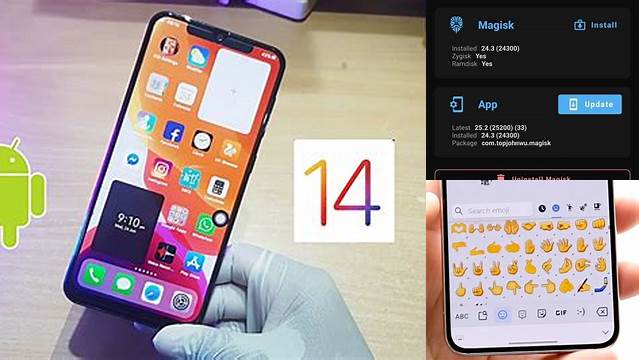
Get IOS 14 Fonts On Your Android Device
Hey everyone! Ever looked at an iPhone and thought, "Wow, those fonts are sleek?" Well, you're in luck, because in this guide, we're diving deep into how you can get those gorgeous iOS 14 fonts for Android! Forget feeling left out; we're bringing that Apple aesthetic right to your Android phone. We'll cover everything from the basics to the more advanced methods, ensuring you have the perfect font experience. Let's get started, shall we?
1. Understanding iOS 14 Fonts and Android Compatibility
So, what's the deal with iOS 14 fonts for Android? The primary fonts in iOS 14, like San Francisco (SF Pro), give Apple devices their distinctive look. These fonts are optimized for readability and a clean, modern feel. Now, Android, being the open-source operating system that it is, lets you customize a lot. Unlike iOS, which is more locked down, Android gives you the freedom to change fonts. However, simply copying an iOS font file (like .ttf or .otf) and pasting it into your Android device isn't always enough. You have to consider things like font compatibility, the Android version you're running, and how your specific device handles custom fonts. Some apps may also override your system-wide font choices, so we'll cover how to deal with those scenarios too. This section sets the stage for what's possible and what to expect when trying to get those beautiful iOS 14 fonts on your Android phone. It's not always a walk in the park, but the results are often worth the effort! And, yes, guys, we'll explore why it's cool and the challenges involved. We'll show you the steps to ensure the best font experience.
7. Troubleshooting Common Font Installation Issues
Getting iOS 14 fonts on Android isn't always smooth sailing, so let's talk about common problems and how to fix them. If the font doesn't change after installation, make sure you've followed the instructions correctly. Double-check that the font files are in the correct folder. And ensure the app or launcher you're using supports custom fonts. If the font looks distorted or doesn't render correctly, it's often because of compatibility issues. You might need to try a different version of the font file or a different installation method. Sometimes, an app may override your chosen font. This means that even if you change your system font, the app will use its own default font settings. There's not always a fix for this. If you're seeing the wrong font in the app, try to look for font settings within the app itself. If you have trouble with a root app, try clearing the app's cache and data. And then, restart your device. We will give you the best tips to make your iOS 14 font experience smooth.
8. Android Version Compatibility with iOS 14 Fonts
Android versions play a big role in how easily you can install iOS 14 fonts. Newer Android versions generally offer better support for custom fonts. Google has made it easier to change fonts, especially with Android 8.0 Oreo and later. If you're running an older version of Android, you might face more limitations. You might need to rely on custom launchers or font apps for installation. Keep in mind that your device manufacturer can also affect font compatibility. Some manufacturers add their own custom UI layers on top of Android. This can sometimes complicate font installation. Before attempting to change fonts, check your device's specifications. Look for information on font customization options. Knowing your Android version and device specifics can help you choose the most compatible installation method. You may be limited by the fonts that can be used. Also, you can always update your device if possible. This often includes updated support for fonts to install iOS 14 fonts.
9. The Differences Between SF Pro and Other iOS Fonts
The primary font used in iOS 14 is San Francisco (SF Pro). Understanding its unique characteristics is key. SF Pro is designed to be highly legible at all sizes. This is a key feature. It has a clean, modern, and slightly rounded design, which gives it a friendly appearance. Unlike other fonts like Helvetica, SF Pro is optimized for the Retina display. It provides a crisp and clear visual experience on high-resolution screens. When installing SF Pro on Android, it's important to remember the specific characteristics. So you can get the best aesthetic experience. The typeface family has a variety of weights, from ultra-light to heavy. This allows you to customize the appearance of your text to suit your preferences. When you are trying to download iOS 14 fonts, be sure to download SF Pro.
10. Best Practices for Font Management on Android
Managing fonts on your Android device effectively is essential for a smooth user experience. Before installing new fonts, it's always a great idea to back up your system fonts. This way, you can easily revert back to your original settings if needed. Make sure you have enough storage space on your device before downloading and installing font files. This can prevent unexpected issues during the installation process. Regularly check and update your font apps or custom launchers to the latest versions. This will ensure you have the latest features, bug fixes, and compatibility. If you're using a custom launcher, experiment with different font sizes and styles to optimize readability. And, personalize your viewing experience. In general, be mindful of the fonts you install and their potential impact on your device's performance. Following these best practices will help you get the most out of iOS 14 fonts.
11. Comparing Font Apps: Which One Is Right for You?
When it comes to font apps for getting iOS 14 fonts on your Android device, the options are numerous, and choosing the right one can be tricky. Some font apps stand out for their ease of use. They have simple interfaces and offer straightforward installation processes. Other apps may provide a broader selection of fonts. That can include more customization options, and even support for specific device models. The best app for you depends on your personal preferences. Consider the features that are most important to you. Do you prioritize ease of use? Or do you value a vast font library? Read reviews from other users to get insights into the app's performance. This can include how the app handles system-wide font changes and how it impacts battery life. Always check the app's permissions to ensure you're comfortable with the level of access it requires. Some apps will ask to change the fonts. Some will use all of your data. Consider your device and how the app will affect it. When choosing a font app to download iOS 14 fonts, make the choice that works best for you.
12. Finding the Perfect iOS 14 Font Size and Style
Once you have your iOS 14 fonts installed on your Android device, the next step is to find the perfect size and style. Most font apps and launchers allow you to adjust the font size to your liking. Experiment with different sizes until you find one that's easy to read and comfortable for your eyes. Some apps also provide options to change the font weight. You can choose between bold, italic, or regular styles. This can further customize the look of your text. Consider the overall aesthetic of your device. A font size that's too small may be difficult to read. One that is too large might appear cluttered. Play around with different combinations of sizes and styles to find what works best for you. Don't be afraid to tweak the settings until you achieve your desired result! Finding the perfect font size and style adds a unique, personalized touch. This also ensures that the iOS 14 fonts are easily readable.
13. The Impact of Font Choice on Your Device's Interface
The font you choose can significantly influence the appearance of your Android device's interface. An iOS 14 font like San Francisco can give your device a clean, modern aesthetic. The font's readability can impact your overall user experience. A well-chosen font can make your device feel more polished and visually appealing. It can also improve readability, reducing eye strain and making it easier to navigate your device. Consider the contrast between the font and your device's background. A font that doesn't contrast well may be difficult to read. Think about the overall visual harmony of your device. Choose fonts that align with your aesthetic preferences and personal style. The right font can make your device feel like a custom extension of yourself. Using a iOS 14 font can change how your device looks.
14. Safety and Security: Downloading Fonts Safely
Downloading fonts from the internet does carry potential security risks, so it's essential to take precautions. Always download font files from trusted sources, like reputable font websites or the official developer's website. Be wary of downloading font files from unfamiliar or suspicious websites, as they may contain malware. Before installing a font file, scan it with a reliable antivirus app. This helps to detect and remove any potential threats. Consider the permissions that a font app requests. Ensure that you're comfortable with the level of access it requires to your device. When in doubt, err on the side of caution. Stick to well-known font sources and apps that have a good reputation. Downloading fonts safely can ensure that you successfully use iOS 14 fonts.
15. iOS 14 Font Alternatives for Android
While San Francisco is the primary font in iOS 14, there are alternative fonts that you might also like on your Android device. These options may offer a similar aesthetic appeal. Or, they might simply be a better fit for your personal preferences. Many Android users may want the iOS 14 fonts. If you are unable to get them, here are some alternative fonts. Some popular alternatives include Roboto, Open Sans, and Montserrat. These fonts are known for their readability and modern design. You can easily find and install these fonts through font apps, custom launchers, or manual installation methods. Explore various font options to discover what best suits your taste and the overall style of your device. Experiment with different fonts to create a truly unique user experience. There are plenty of alternatives if you cannot find iOS 14 fonts.
16. Using SF Pro with Custom Themes and Icon Packs
Combining the iOS 14 font (SF Pro) with custom themes and icon packs can completely transform the look of your Android device. Custom themes allow you to change the overall appearance of your device. Icon packs provide a unified design for your app icons. When selecting a theme or icon pack, choose ones that complement the sleek and modern style of SF Pro. Some themes and icon packs are specifically designed to work well with the San Francisco font. Experiment with different combinations to find what looks best. You can use these combinations to make your device look like a real iPhone. Make sure the icons are designed with iOS 14 fonts. It is important to make your device look the best.
17. iOS 14 Font Legality and Licensing Considerations
Before you start using those iOS 14 fonts on your Android, it's a good idea to understand the legal side of things. Font licensing is a complex topic, and it's important to respect the rights of the font creators. While San Francisco is the primary font for iOS, it may have licensing restrictions depending on how you use it. Generally, using a font for personal, non-commercial purposes is okay. However, for commercial use, you might need to obtain a license. Always check the font's license agreement. Make sure you are following the terms. If you're unsure about the licensing, consider using a similar font that has a more permissive license. Be transparent and respectful. Doing so can ensure you do not have any legal issues. We can provide some insight when you use iOS 14 fonts on your Android.
18. System-Wide vs. App-Specific Font Changes
One of the things you'll encounter when customizing your Android fonts is the difference between system-wide and app-specific changes. System-wide changes, such as those applied through font apps or custom launchers, will affect the font in most areas of your device's interface. That would include the menus, settings, notifications, and even some pre-installed apps. App-specific font changes, on the other hand, only apply to particular apps. These changes are usually made within the app's settings. Not every app allows you to change the font. Apps like messaging apps or note-taking apps often have their own font settings. Sometimes, app developers may override your system-wide font choices. This may be done to maintain the app's brand or design consistency. Understanding these differences is crucial. It will help you to achieve the desired font customization throughout your device. Be sure to find all the options that you want for iOS 14 fonts.
19. The Future of Font Customization on Android
The future of font customization on Android is exciting and looks promising. Google continues to improve the font customization options in newer Android versions. As Google pushes out new Android versions, customization options are likely to expand. Manufacturers are also developing more user-friendly interfaces. We will see the emergence of new font apps and tools. As more people want to use different fonts, it is likely that the options will continue to increase. We can expect an increase in compatibility, ease of use, and creative possibilities. This will allow users to personalize their devices. The main goal is to create a seamless and enjoyable user experience. Those looking for iOS 14 fonts will have an easy time finding them in the future.
20. Step-by-Step Guide: Installing iOS 14 Fonts on Android
Here's a general step-by-step guide to installing iOS 14 fonts on your Android device. Step 1: Choose Your Method. Determine whether you want to use a font app, a custom launcher, or manual installation. Step 2: Download the Font Files. Find and download the iOS 14 font files (San Francisco) in .ttf or .otf format. Step 3: Install the Font. If using a font app, install and follow its instructions. If using a custom launcher, install the launcher. Then, go to the font settings and select the iOS 14 font. If doing a manual install, place the font files in the appropriate folder. Step 4: Apply the Font. Restart your device or the launcher if prompted. Then, check if the font has been applied. Step 5: Troubleshoot (If Needed). If the font doesn't change or looks incorrect, check the troubleshooting tips we discussed earlier. Remember to adapt these steps to your specific device and chosen method. This will help you successfully obtain iOS 14 fonts.
21. Common Mistakes to Avoid When Installing Fonts
When trying to get iOS 14 fonts on your Android, some common mistakes can ruin your experience. One mistake is downloading font files from untrusted sources. Always download fonts from a reliable source. Another mistake is not backing up your system fonts. This can make you unable to revert your changes. Another mistake is not checking your Android version or device compatibility before starting the process. Make sure the font is compatible with your device. Following these tips will help you get iOS 14 fonts.
22. How to Revert Back to Your Default Fonts
If you decide that the iOS 14 fonts aren't for you, reverting back to your default fonts is usually straightforward. If you used a font app, it should have an option to restore your original font settings. If you're using a custom launcher, go to the launcher's font settings and select the default font. If you manually installed the fonts, you may need to delete the font files from the directory where you placed them. If you rooted your device, you might need to use a root app to restore the default system fonts. Regardless of the method, always restart your device. This will help to ensure that your system displays the original font. These tips will assist you in reverting iOS 14 fonts.
23. Font Alternatives That Mimic the iOS 14 Look
If you cannot install the iOS 14 fonts successfully, don't worry! There are alternative fonts that mimic the look of iOS 14's San Francisco font. These alternative fonts can give your Android device a similar sleek and modern aesthetic. Consider fonts like Roboto, which is a popular and versatile font. Another good option is Montserrat, which is known for its clean lines and readability. You can also check out Lato, a sans-serif font with a friendly, approachable feel. These fonts are usually easier to install. They also offer great alternatives for achieving a similar appearance to SF Pro. Experiment with different fonts to find the one that fits your aesthetic best. These tips will assist in using fonts that have a similar feel to iOS 14 fonts.
24. Optimizing Font Rendering for Clarity and Readability
Once you have installed your iOS 14 fonts or their alternatives, optimizing font rendering is key for clarity and readability. Make sure your display settings are properly configured. Adjust the brightness and contrast to enhance the readability of the text. In the system settings, you can often find an option to adjust the text size. Experiment with these settings to find the size that suits your needs. Consider enabling the high-contrast text mode if you have difficulty reading the text. This will enhance the contrast between the text and the background. Keep these tips in mind to get the best iOS 14 fonts experience.
25. Using iOS 14 Fonts for Specific Apps and Features
While you can install iOS 14 fonts system-wide, you might also use them within certain apps or features. Many apps allow you to customize font settings. Messaging apps, note-taking apps, and even some social media platforms often have font options. Explore the settings within these apps to see if you can change the font. You may be able to use the San Francisco font or an alternative that you like. Some apps also allow you to adjust the font size, style, and color. Experiment to personalize your reading experience. Keep in mind that not all apps support custom fonts. But those that do can offer a unique and customized look for your Android. Using the iOS 14 fonts is a great way to add a personal touch.
26. The Role of DPI Settings and Font Display
Your Android device's DPI (dots per inch) settings influence how fonts are displayed. DPI settings control the density of pixels on your screen, affecting the size and clarity of the font. If the font appears too small or too large, you can adjust the DPI settings. This can be found in the display settings. Be careful when modifying these settings. Incorrect DPI settings can lead to layout issues. If you are having problems with the iOS 14 fonts, this is one of the ways to correct them. Adjust the settings to ensure your font is readable.
27. Best Font Combos with iOS 14 Fonts
If you are going to use the iOS 14 fonts, you may need other fonts that complement it. You can create a cohesive and visually appealing look. San Francisco, the iOS 14 font, often pairs well with simple, clean fonts. Try pairing SF Pro with a thin, elegant font for headings and titles. Be creative with different fonts to make a unique user experience. It is important to make sure they are compatible, easy to read, and enhance the overall design. Finding the best font combos can really showcase your iOS 14 fonts.
28. Font Style Variations of the San Francisco Font
The San Francisco font family has various style variations. It provides you with options to customize the text appearance on your Android. You will find different weights like regular, bold, light, and ultra-light. These variations allow you to change the emphasis of your text. There are also italic styles, which can be used for specific parts of your content. Experiment with the different style options. This can help to get the desired font look. Use iOS 14 fonts to your advantage. It can showcase the best experience.
29. Font Rendering and Device Performance Considerations
While the iOS 14 fonts can enhance the aesthetics of your Android device, it's important to consider font rendering and how it affects device performance. Font rendering involves displaying fonts on the screen. If the rendering process is not optimized, it can cause performance issues. Installing too many custom fonts or using fonts that are not compatible with your device can result in slowdowns, lag, or battery drain. When you install the iOS 14 fonts, it is important to monitor your device's performance. Try to keep a balance to get the best performance.
30. Common FAQs About iOS 14 Fonts on Android
Let's wrap things up with some frequently asked questions about getting iOS 14 fonts on Android. Q: Is it safe to download fonts from the internet? A: Download fonts from trusted sources to avoid malware. Q: Does rooting my device void its warranty? A: Yes, it usually does. Q: Can I use these fonts in every app? A: No, it depends on the app. Q: What if my font looks distorted? A: Try a different font file or method. Getting iOS 14 fonts is not always easy, but you can get them successfully.